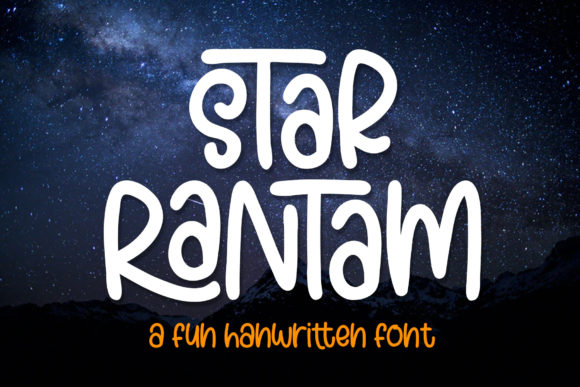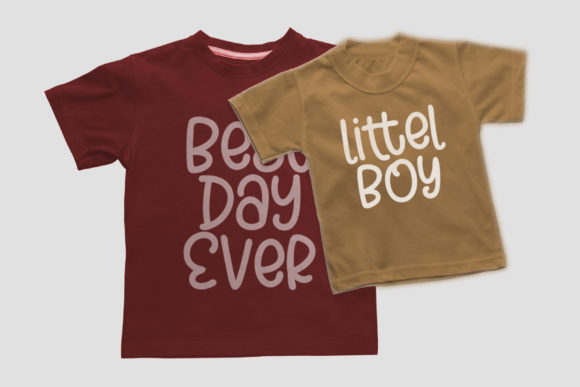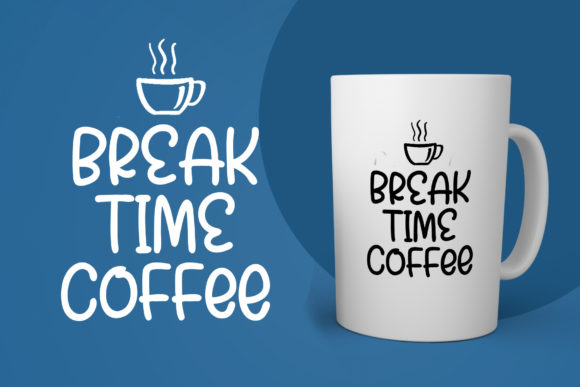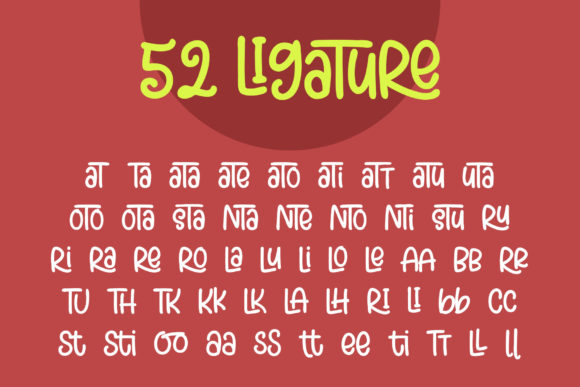
About Star Rantam Font
Star Rantam is a fun handwritten font. It is a beautiful monoline font that has unique characters and a minimalist feel. Great for stationery, logos, t-shirts, paper, print designs, flyers, music covers, posters, image sliders, and more.